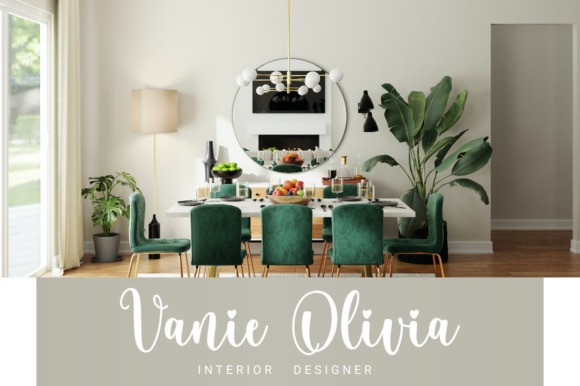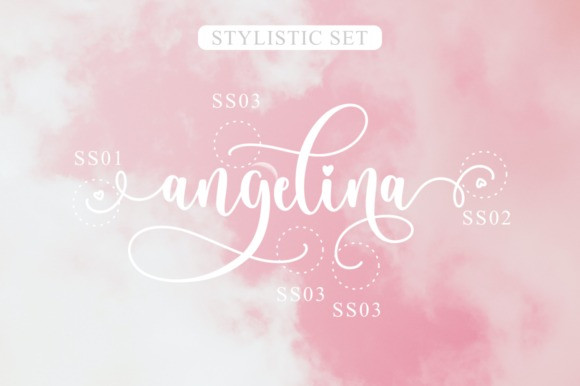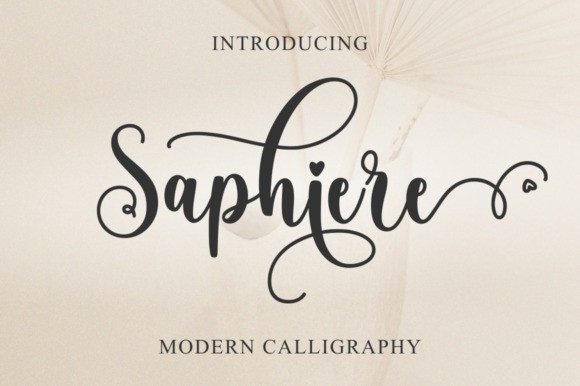
Saphiere Font
Saphiere Calligraphy Font is a lovely script font featuring charming, playful characters that seem to dance along the baseline. This font is PUA encoded which means you can access all glyphs and swashes with ease!